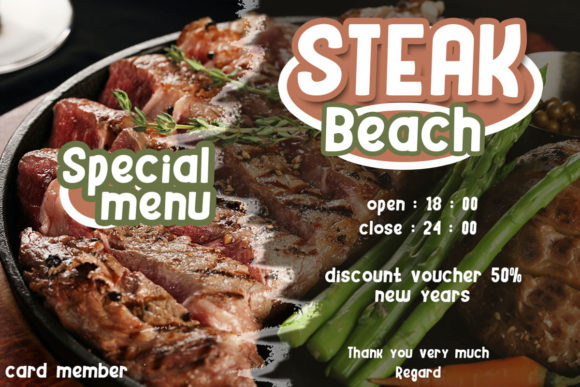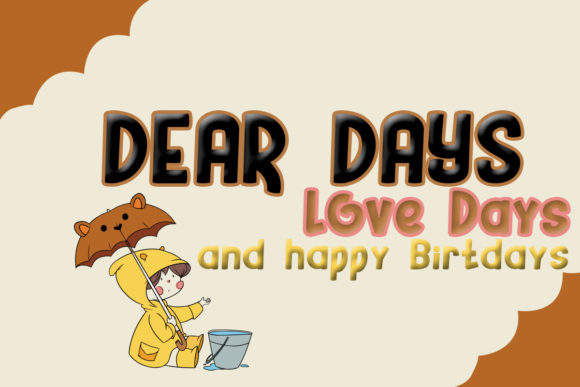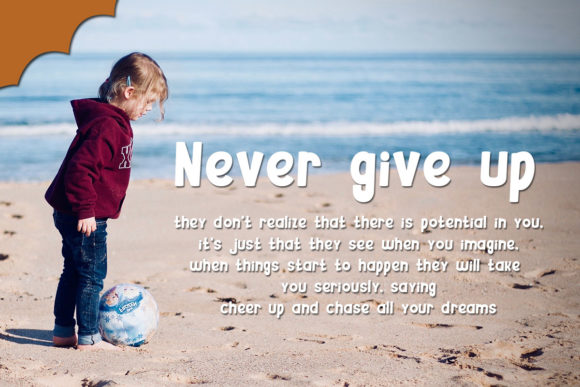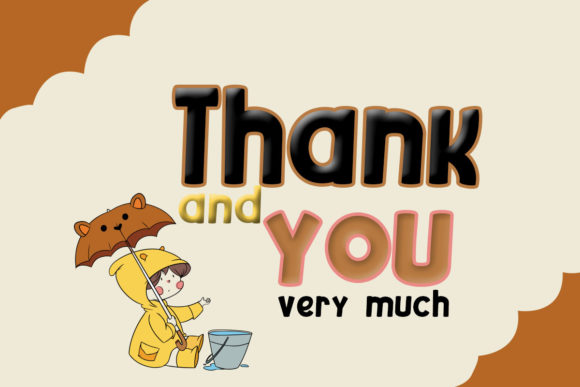
Introduction to Kiky and Beach Font Font
Fonts play a crucial role in design, and the Kiky and Beach Font font is a typeface that brings both character and versatility to any project. Whether you’re working on a branding project, a website, or a print design, the Kiky and Beach Font font offers a unique style that can elevate your work.
Kiky and Beach is a cartoon like display font.
It is defined by thick letters and is perfect for trendy or casual designs Add it confidently to your projects, and you will love the results.
Key Features of Kiky and Beach Font Font
Why Choose Kiky and Beach Font Font?
The Kiky and Beach Font font is more than just a typeface – it’s a design tool that helps you communicate your message with style and clarity. Its unique character set and versatile design make it suitable for a wide range of applications, from elegant invitations to bold headlines.
With its carefully crafted letterforms and balanced proportions, the Kiky and Beach Font font ensures readability and visual appeal across all mediums.
What makes Kiky and Beach Font font special?
The Kiky and Beach Font font stands out with its unique design, exceptional readability, and versatility across various design applications.